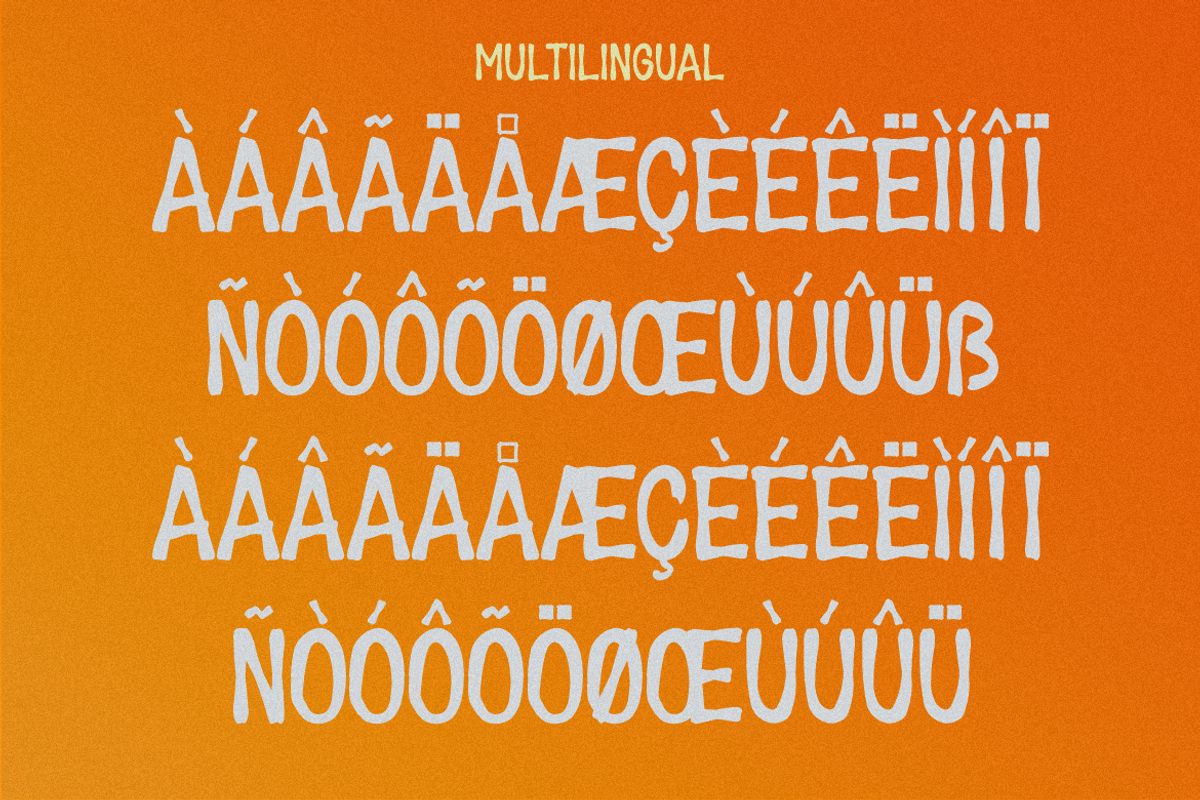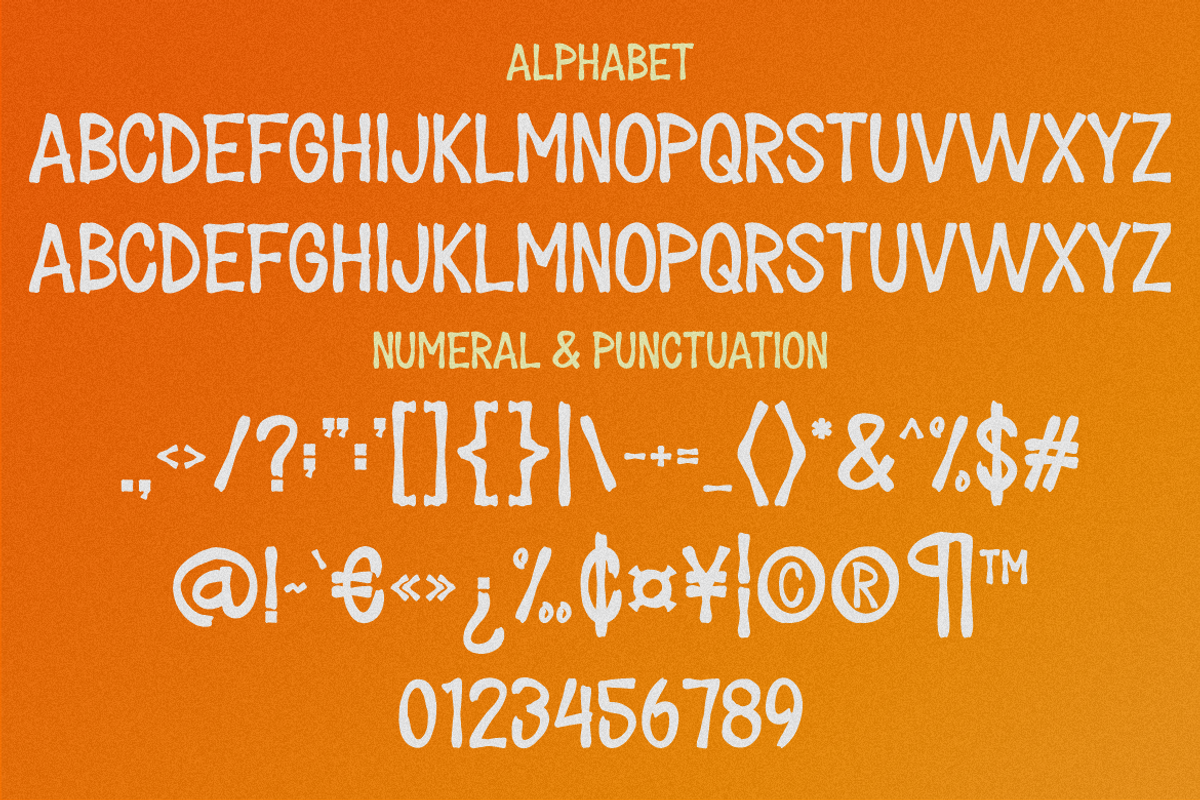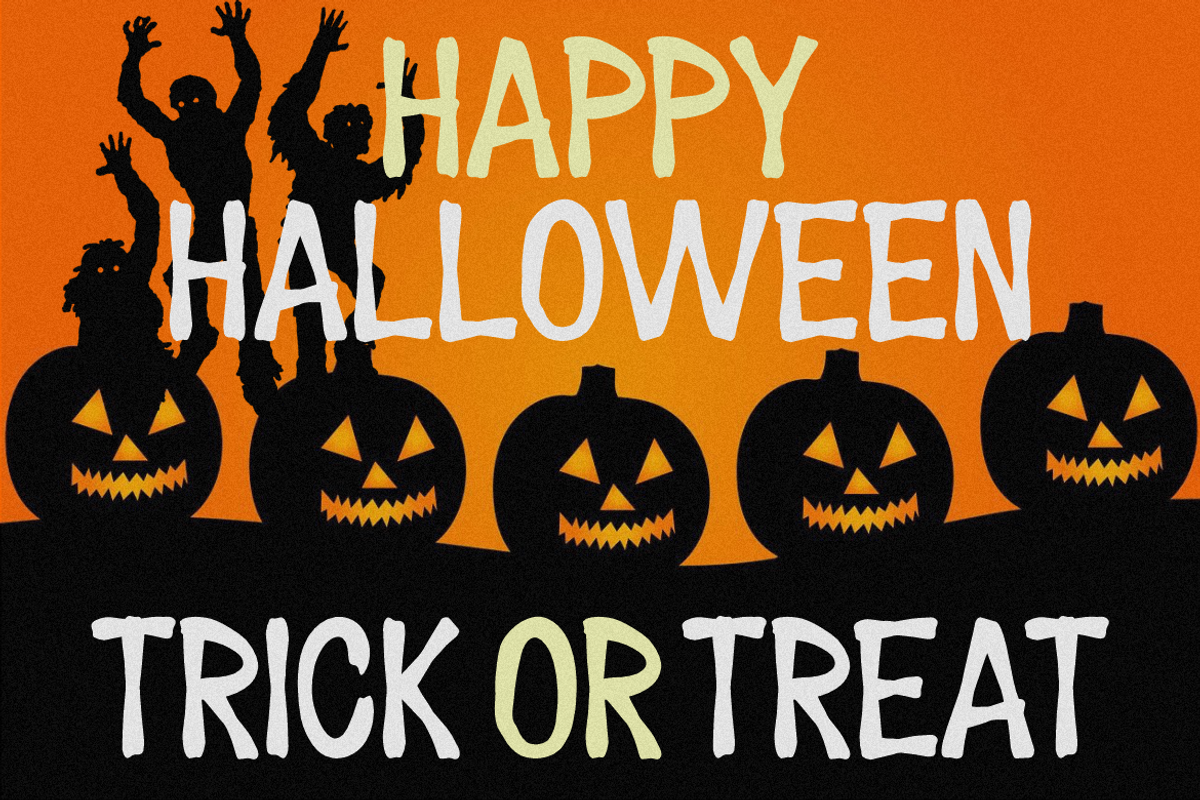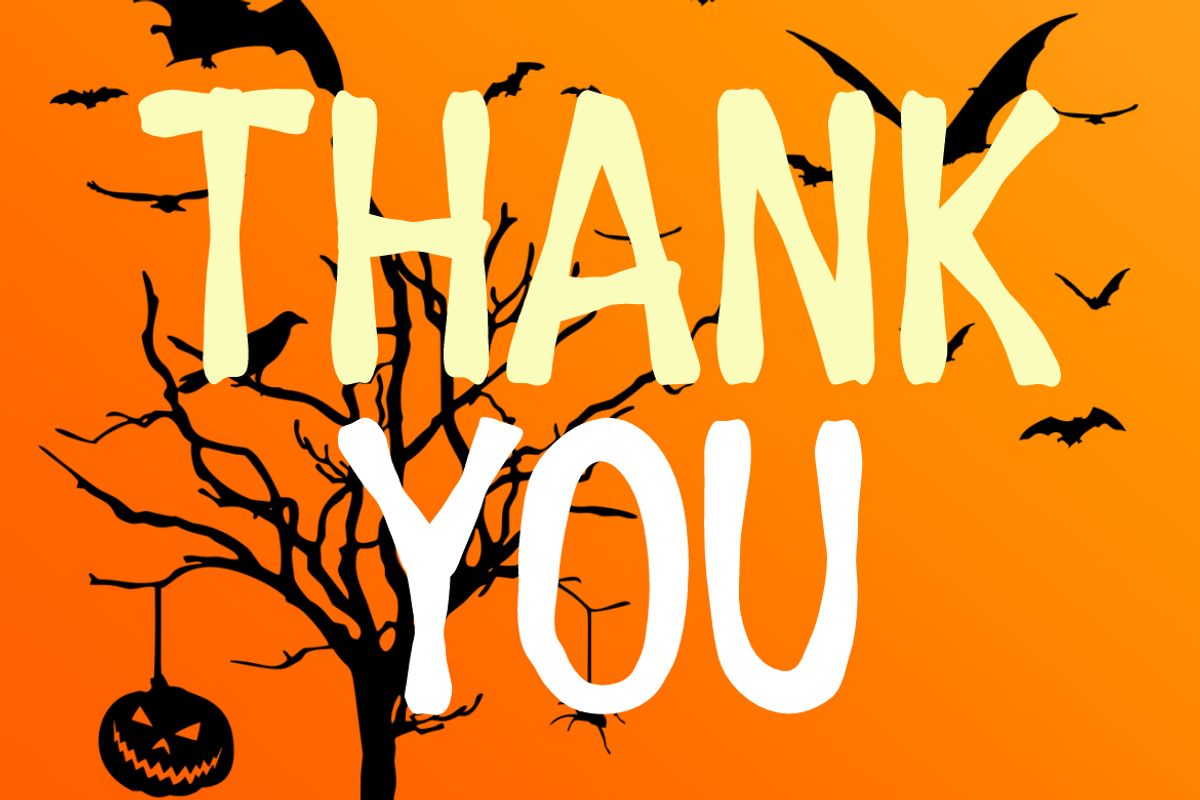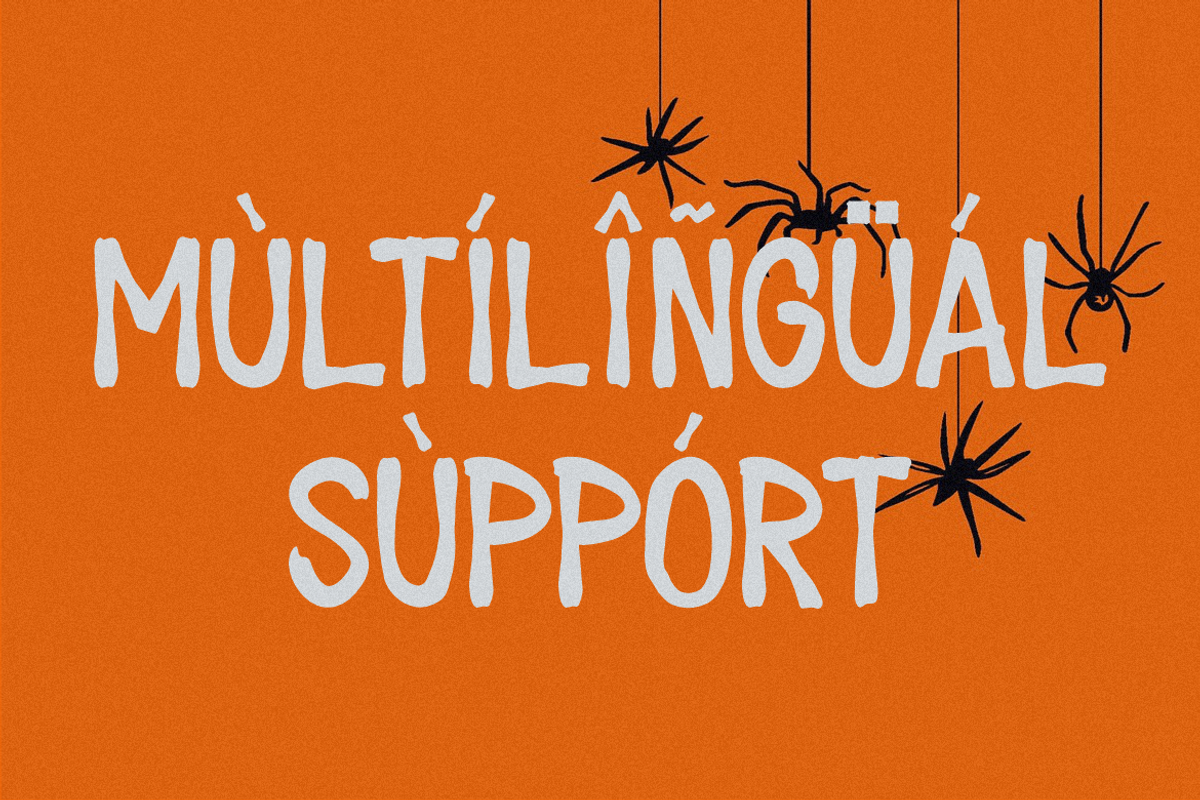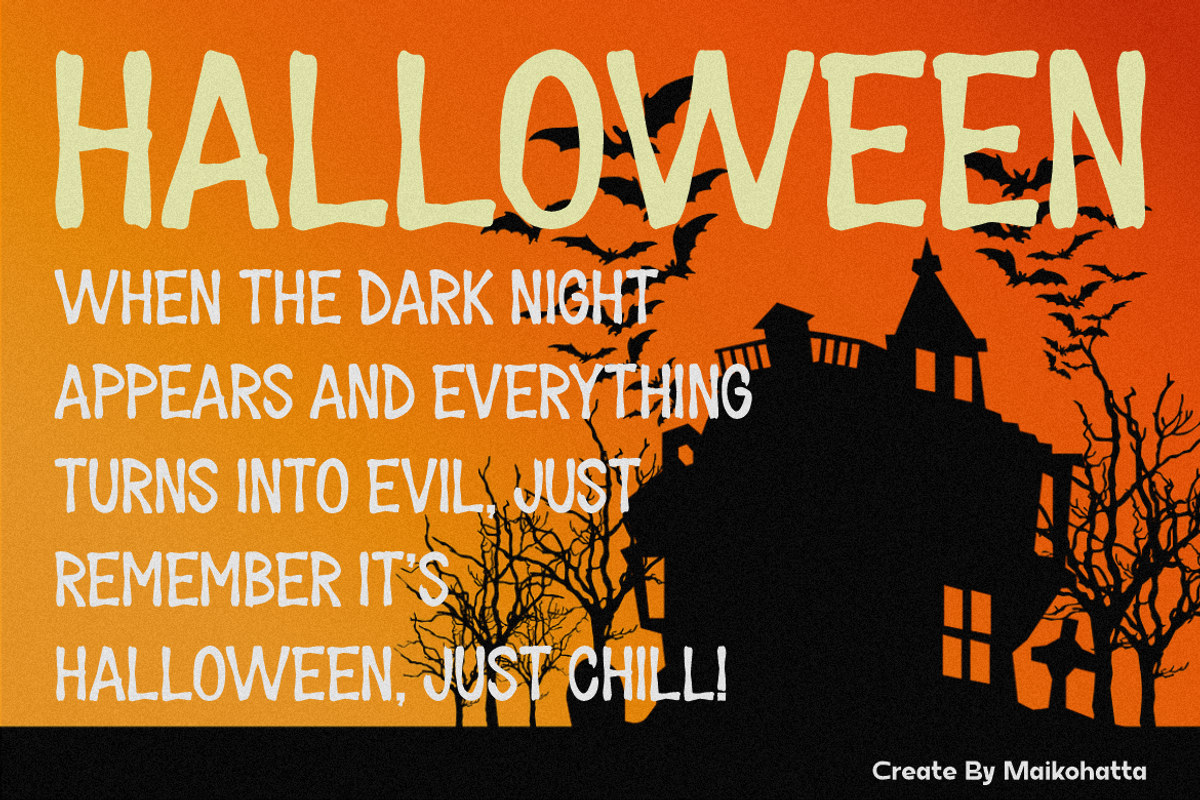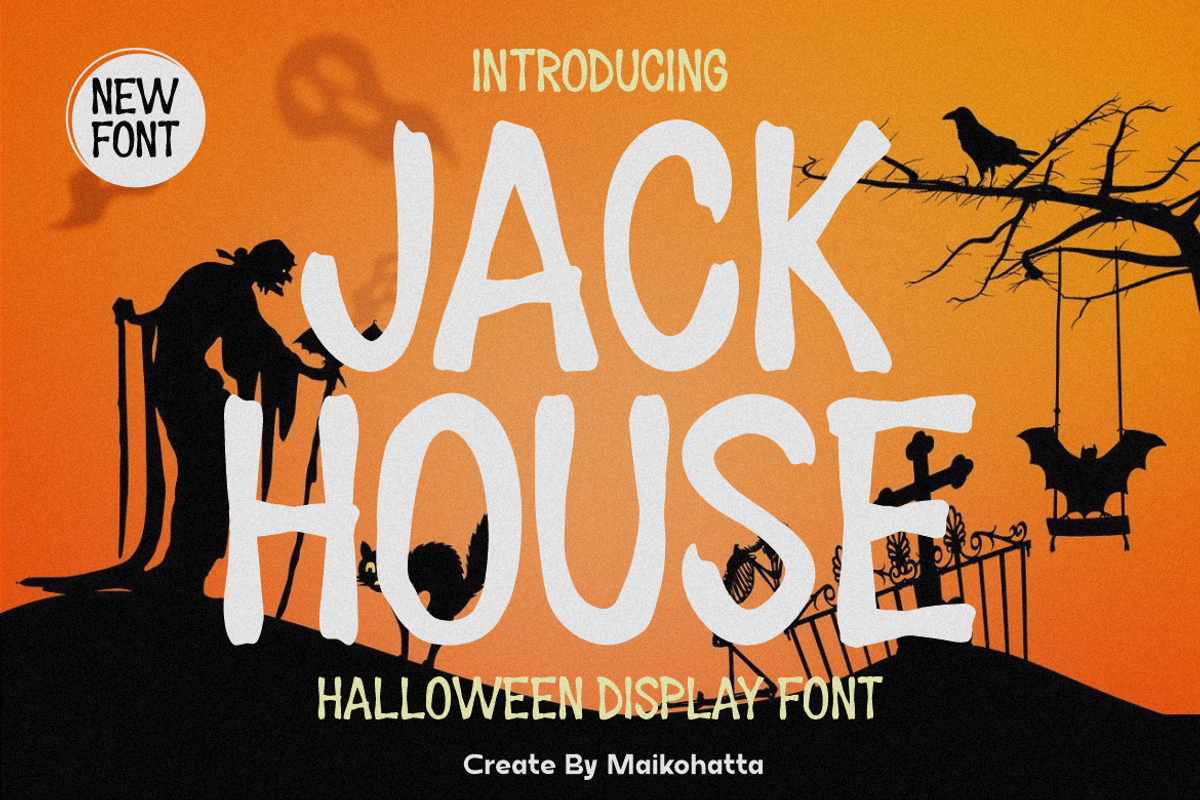
Jack House - Halloween Display Font
Introducing our new product Jack House - Halloween Display Font
Jack House is a type of font specifically designed to create a spooky, mysterious atmosphere and depict the spirit of Halloween celebrations. This font can be used in various Halloween-related media, such as party invitations, posters, merchandise designs, greeting cards, warning signs, or within website designs with Halloween themes.